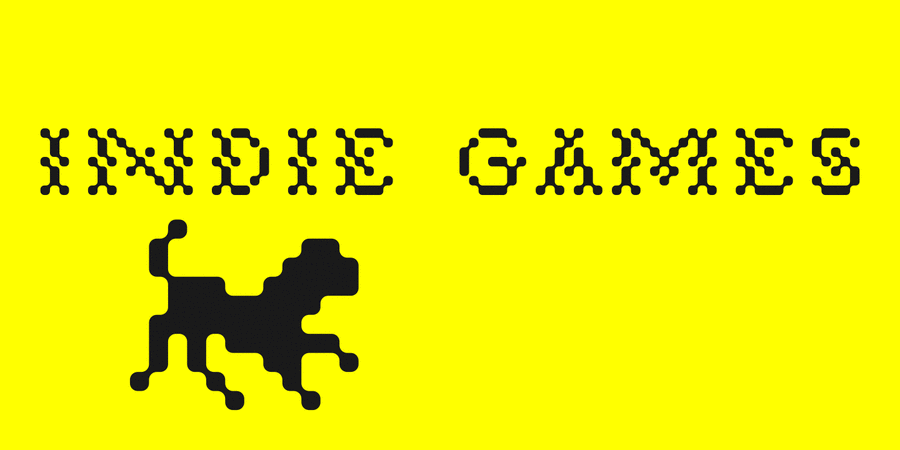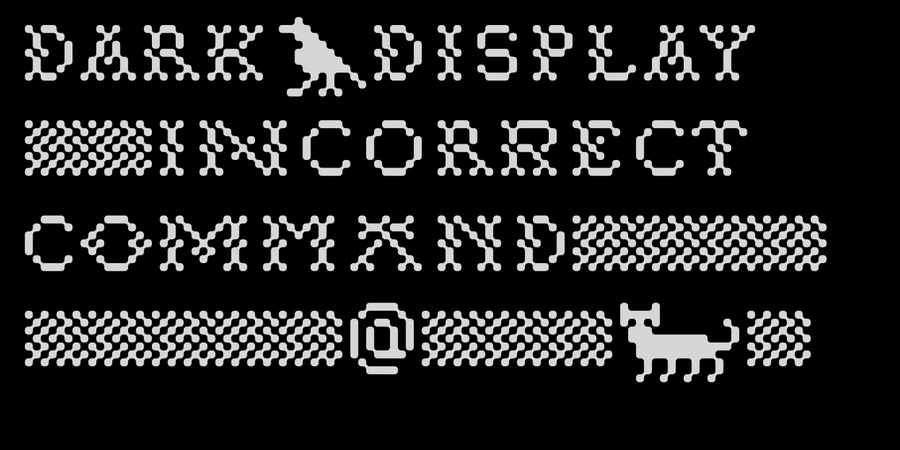
Digital Stitch 2D (1 font)
Digital Stitch is the embroidery of the digital era. This font is a mixture of pixel art, traditional cross stitch, and printed circuit boards. Supports many languages and contains ornaments and pictures. Designed by Lukyan Turetskiy in 2013.